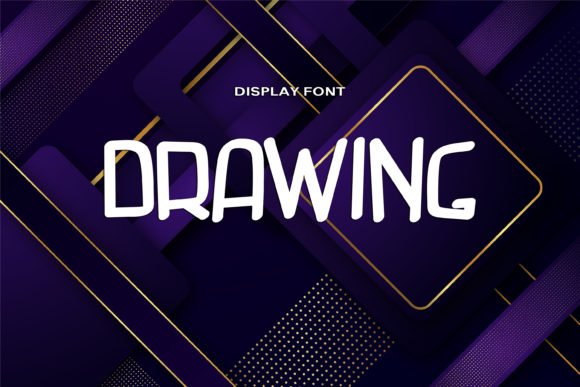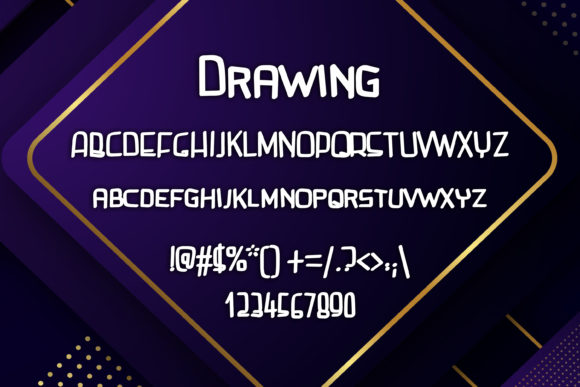
Unleash Your Creativity with the Timeless Charm of Drawing Font
Have you ever been brainstorming a new design project and suddenly felt the urge to grab a pen and paper? The thrill of bringing your ideas to life with a simple sketch is exhilarating, and it’s this very feeling that the Drawing Font aims to capture.
This cute and friendly handwritten font is more than just a stylish choice – it’s a way to infuse your designs with elegance and modernity. Whether you’re a seasoned designer or just starting out, the Drawing Font offers a valuable tool for adding a personal touch to your work.
With its versatility and charm, the Drawing Font is a must-have in any designer’s toolkit. So why not give it a try and see how it can elevate your designs to the next level?
Drawing Font Key Features
Review of Drawing Font
I recently had the chance to work with Drawing Font, and I must say it was an interesting experience. ✨ One of the things that works well with this font is its unique aesthetic. It’s perfect for creating a playful and creative atmosphere in designs. The font is also highly customizable, which is a huge plus for designers who want to add their own personal touch.
Another advantage of Drawing Font is its flexibility. It can be used for a wide range of projects, from children’s books to advertisements, and even digital art. The font is also highly compatible with various software and devices, which makes it a convenient choice for designers.
What doesn’t work so well:
One of the limitations of Drawing Font is its readability. ⚠️ In certain situations, the font can be difficult to read, especially when used in large blocks of text. Additionally, the font may not be suitable for formal or professional projects, as it can come across as too playful or childish.
Overall, I think Drawing Font is a great choice for designers who want to add a touch of creativity and whimsy to their projects. However, it’s essential to consider the project’s purpose and target audience before using this font.
Pros and Cons:
- ✨ Unique aesthetic
- ✨ Highly customizable
- ✨ Flexible and compatible
- ⚠️ Limited readability
- ⚠️ May not be suitable for formal projects